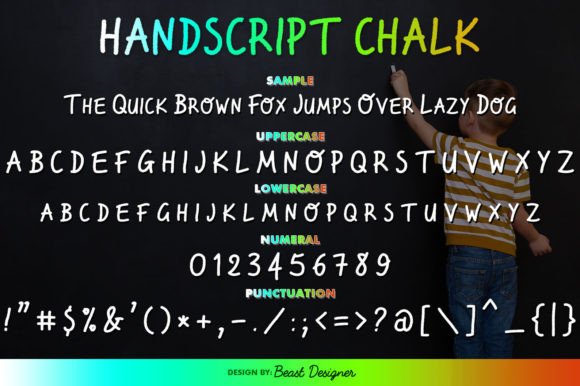
Introduction to Handscript Chalk Font Font
Fonts play a crucial role in design, and the Handscript Chalk Font font is a typeface that brings both character and versatility to any project. Whether you’re working on a branding project, a website, or a print design, the Handscript Chalk Font font offers a unique style that can elevate your work.
Handscript Chalk Font is a charming handwritten script font that captures the essence of classic chalkboard writing.
With its textured, chalk-styled letters, this font brings a nostalgic and playful feel to your creative projects Perfect for school-themed designs, restaurant menus, invitations, quotes, or any project that aims to evoke a sense of creativity and fun, Handscript Chalk adds a personal, hand-drawn touch that stands out.
Key Features of Handscript Chalk Font Font
Why Choose Handscript Chalk Font Font?
The Handscript Chalk Font font is more than just a typeface – it’s a design tool that helps you communicate your message with style and clarity. Its unique character set and versatile design make it suitable for a wide range of applications, from elegant invitations to bold headlines.
With its carefully crafted letterforms and balanced proportions, the Handscript Chalk Font font ensures readability and visual appeal across all mediums.
What makes Handscript Chalk Font font special?
The Handscript Chalk Font font stands out with its unique design, exceptional readability, and versatility across various design applications.